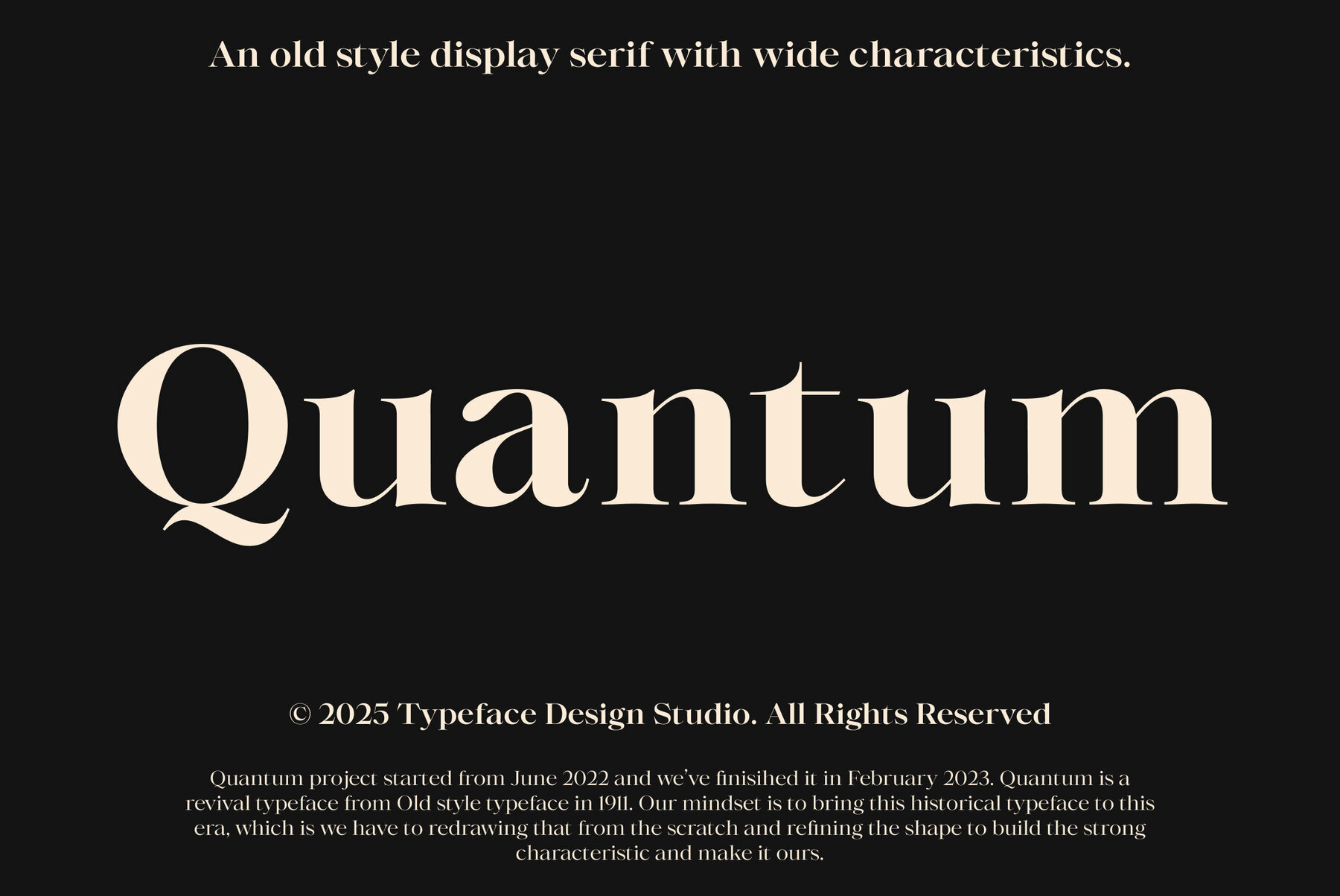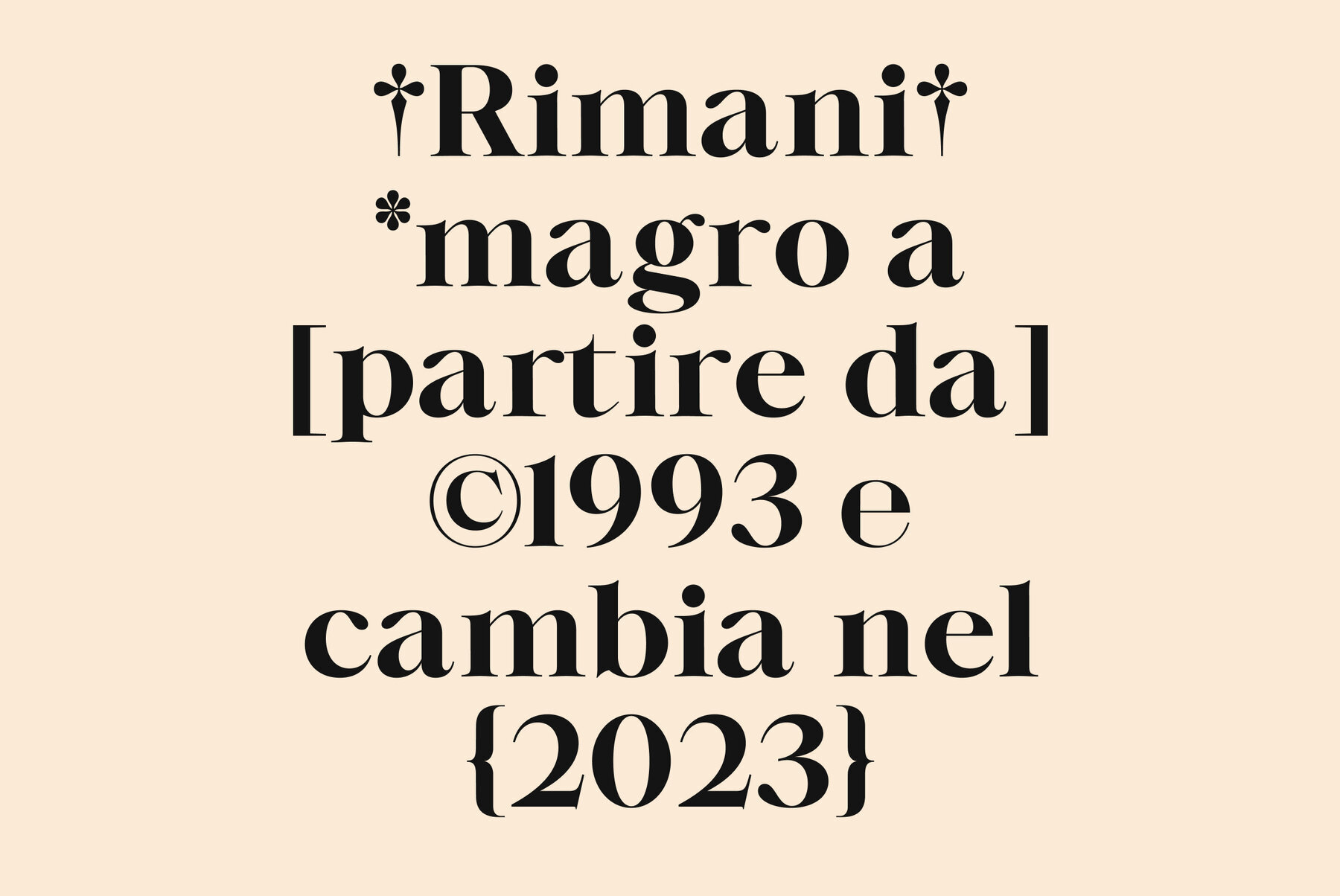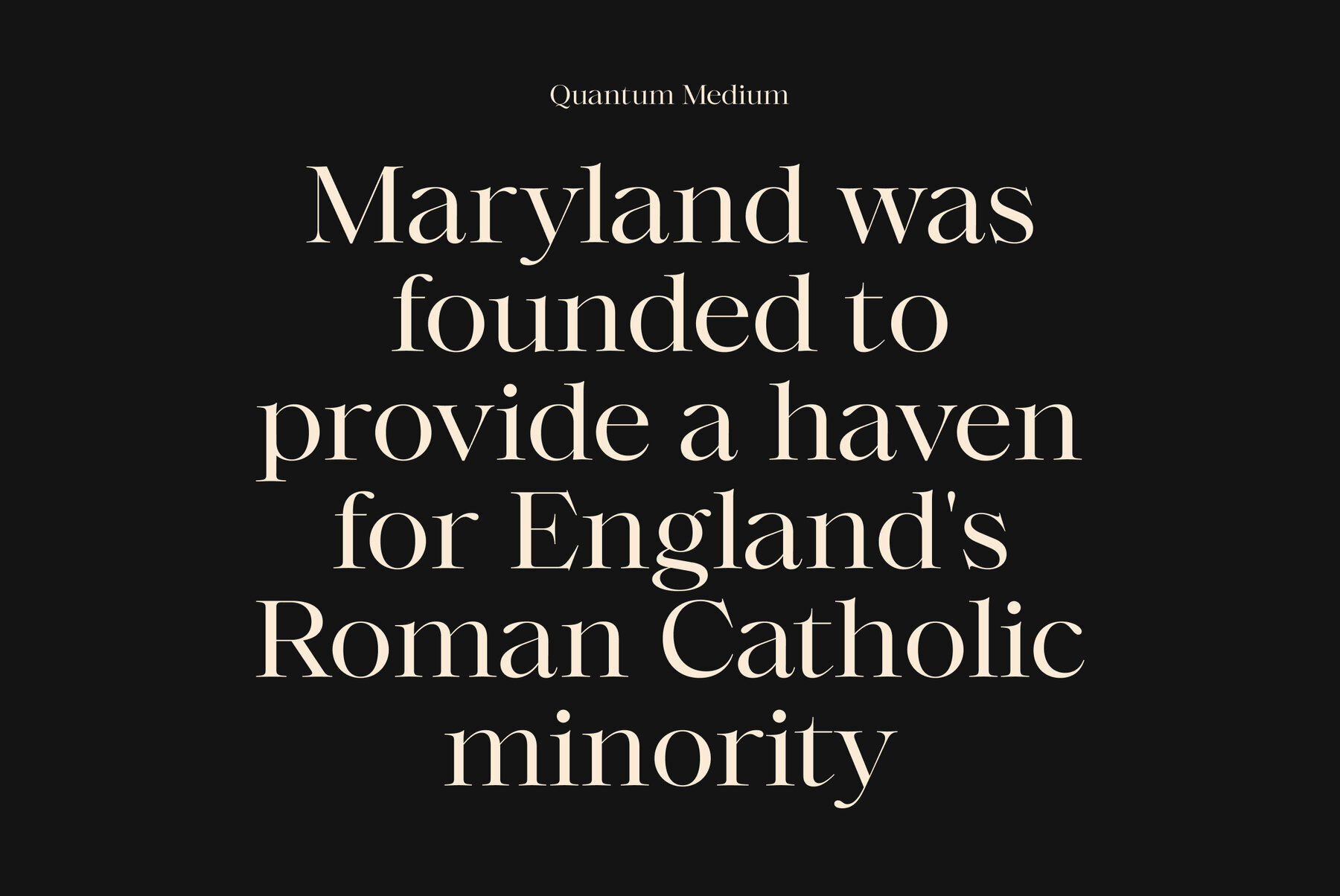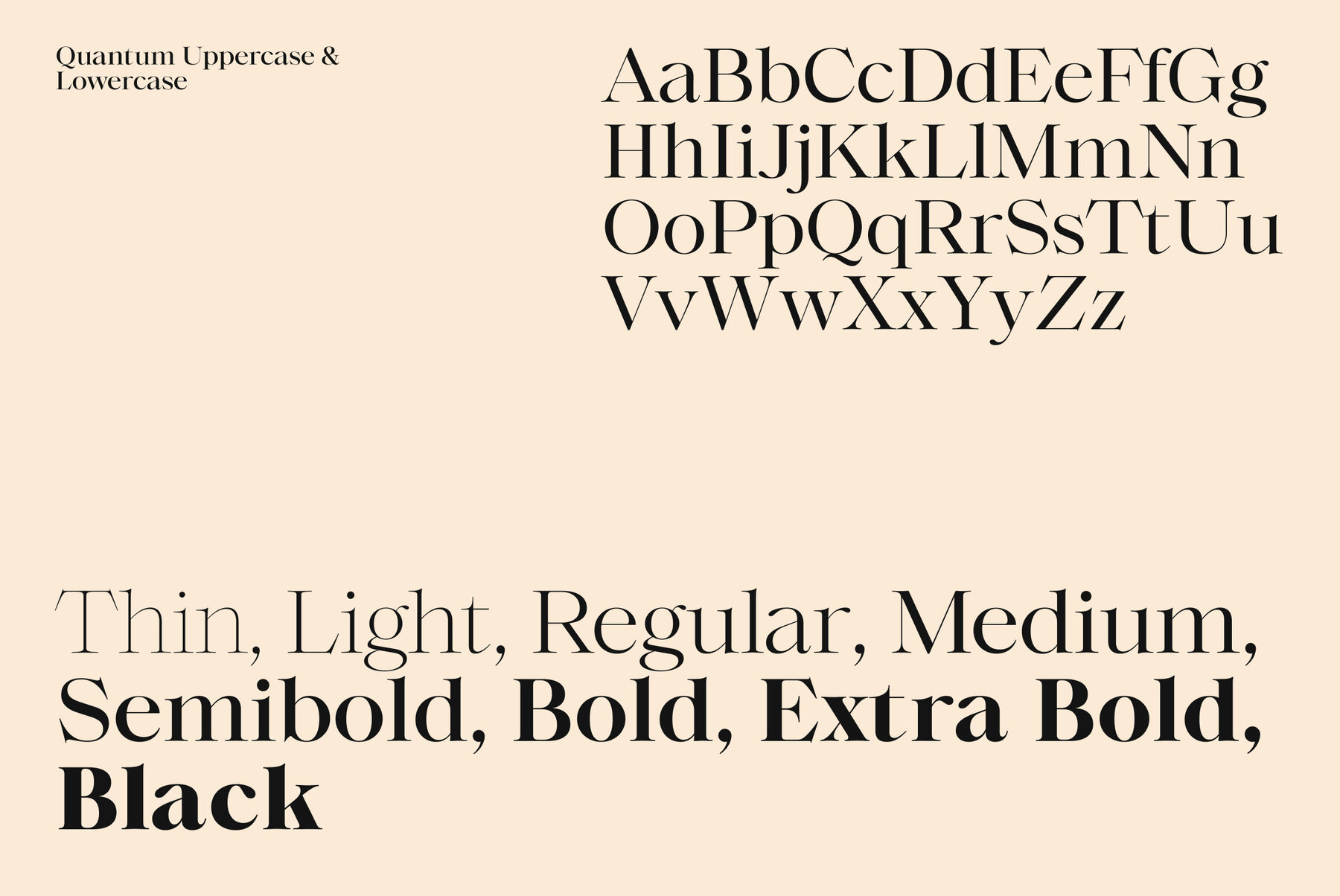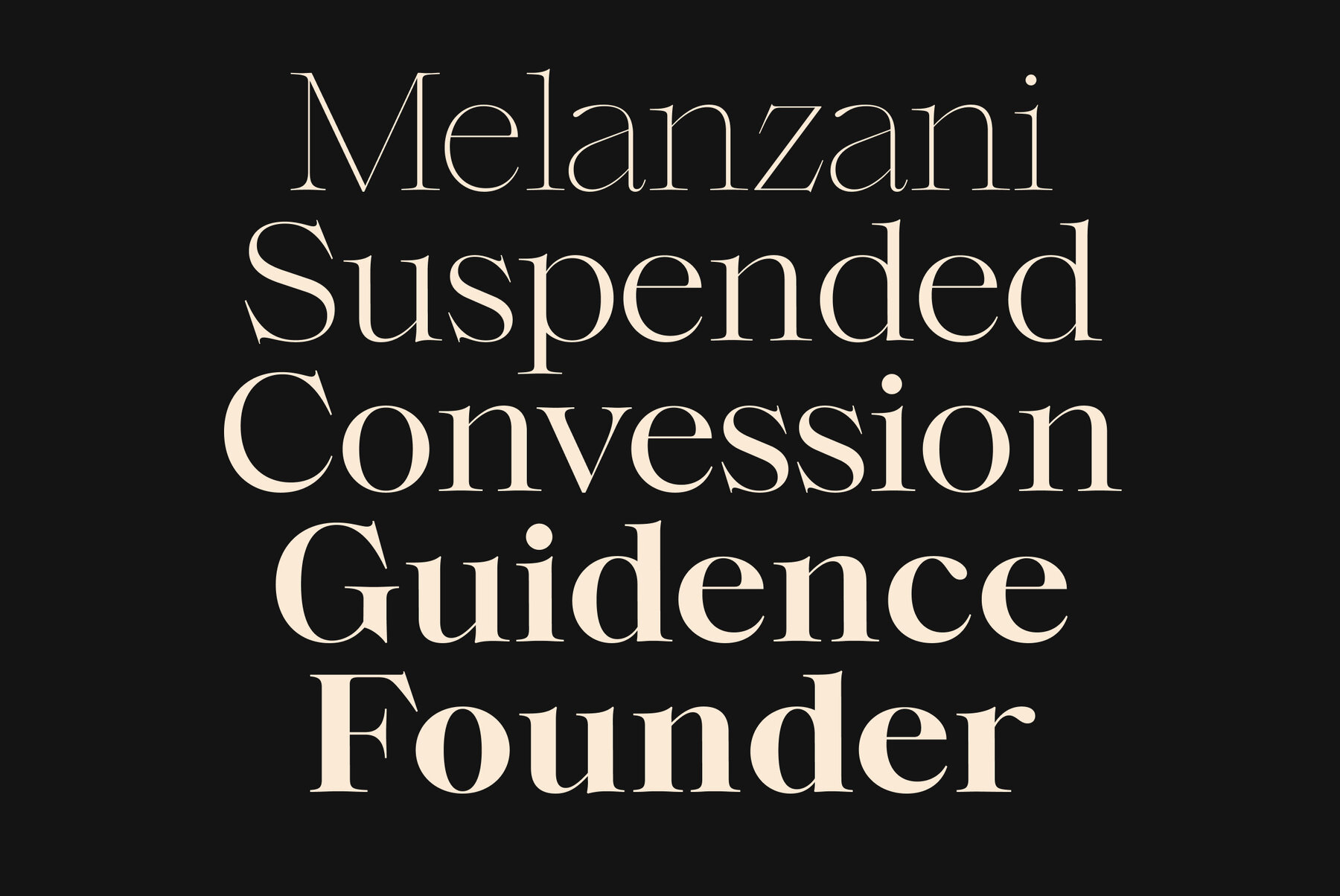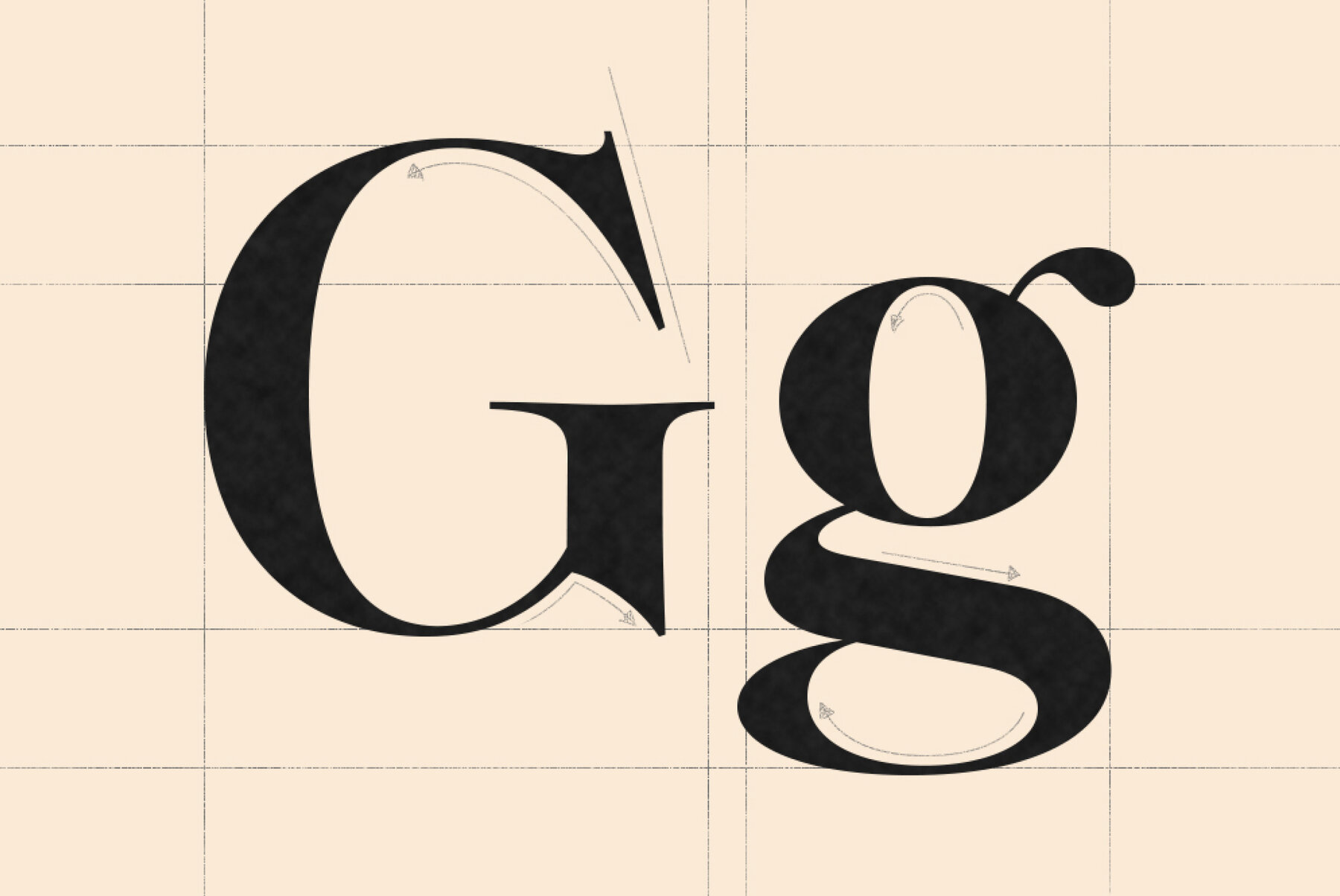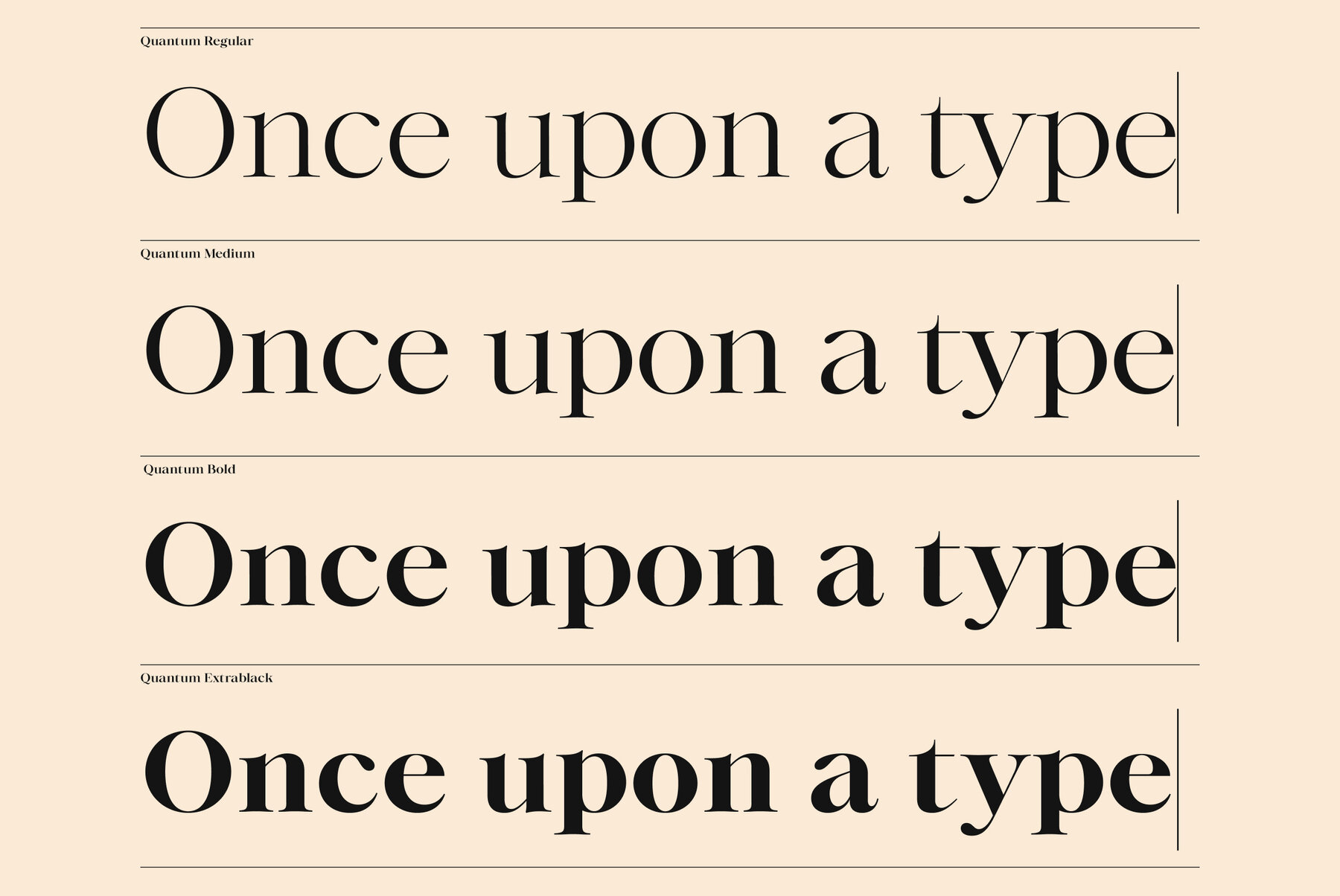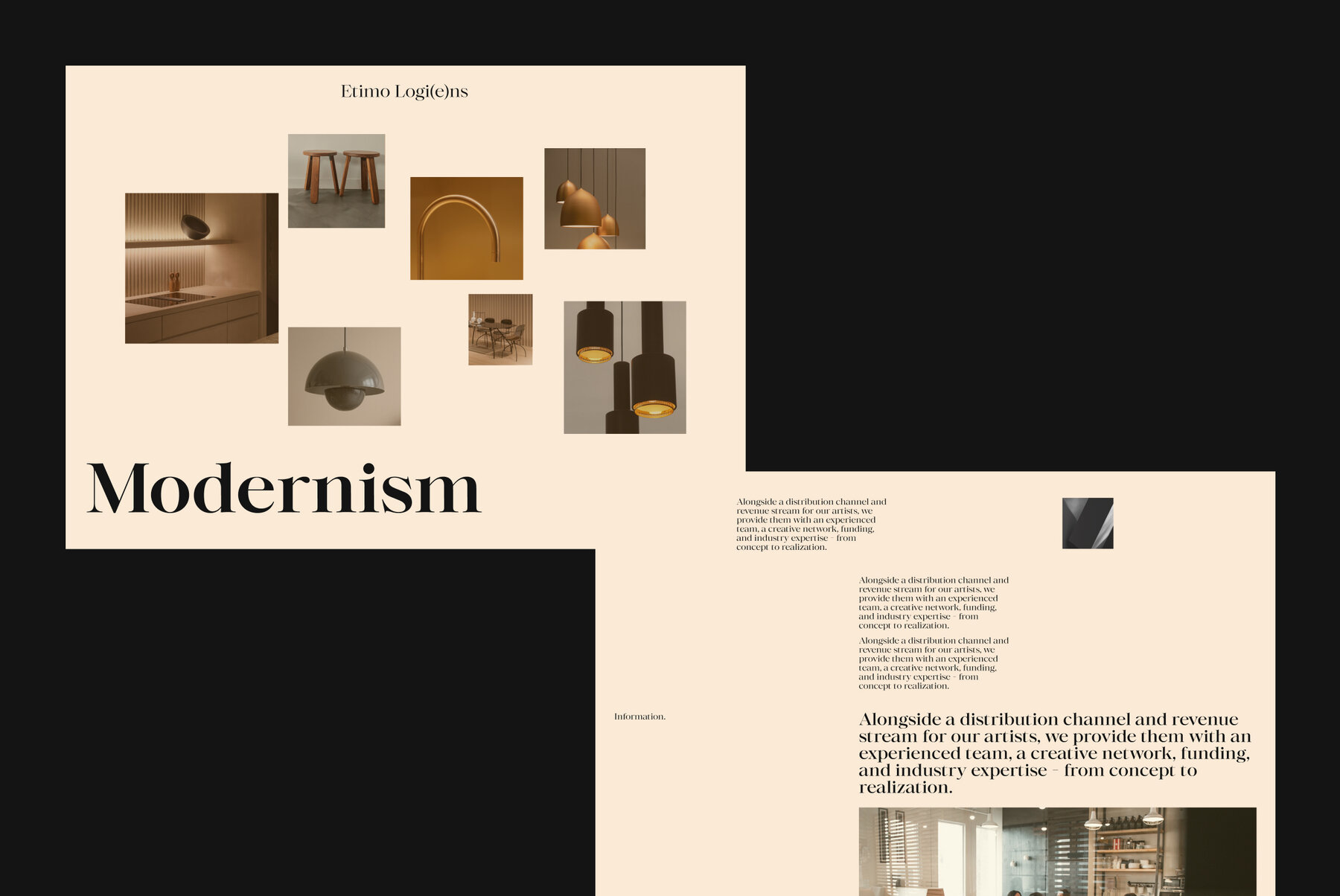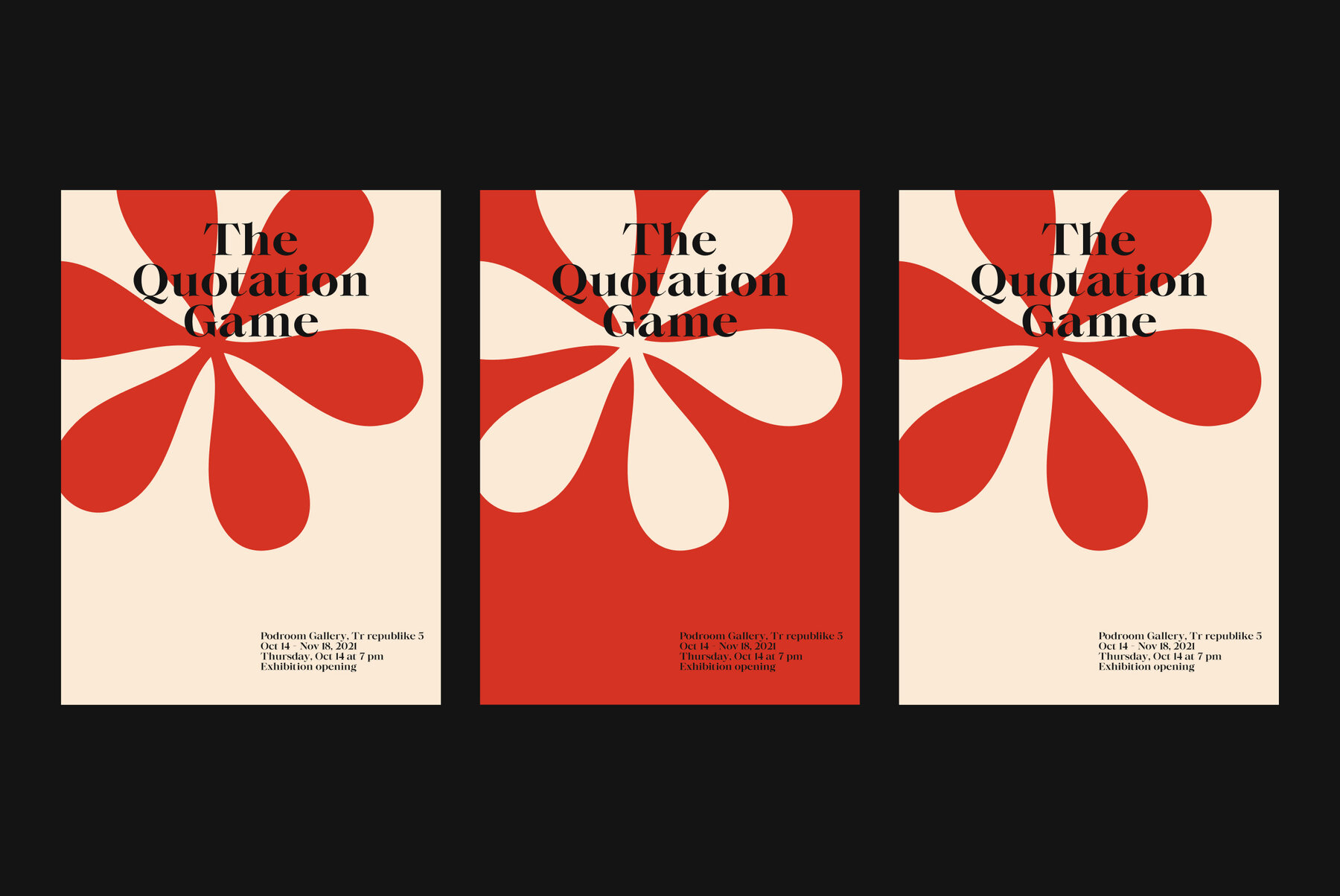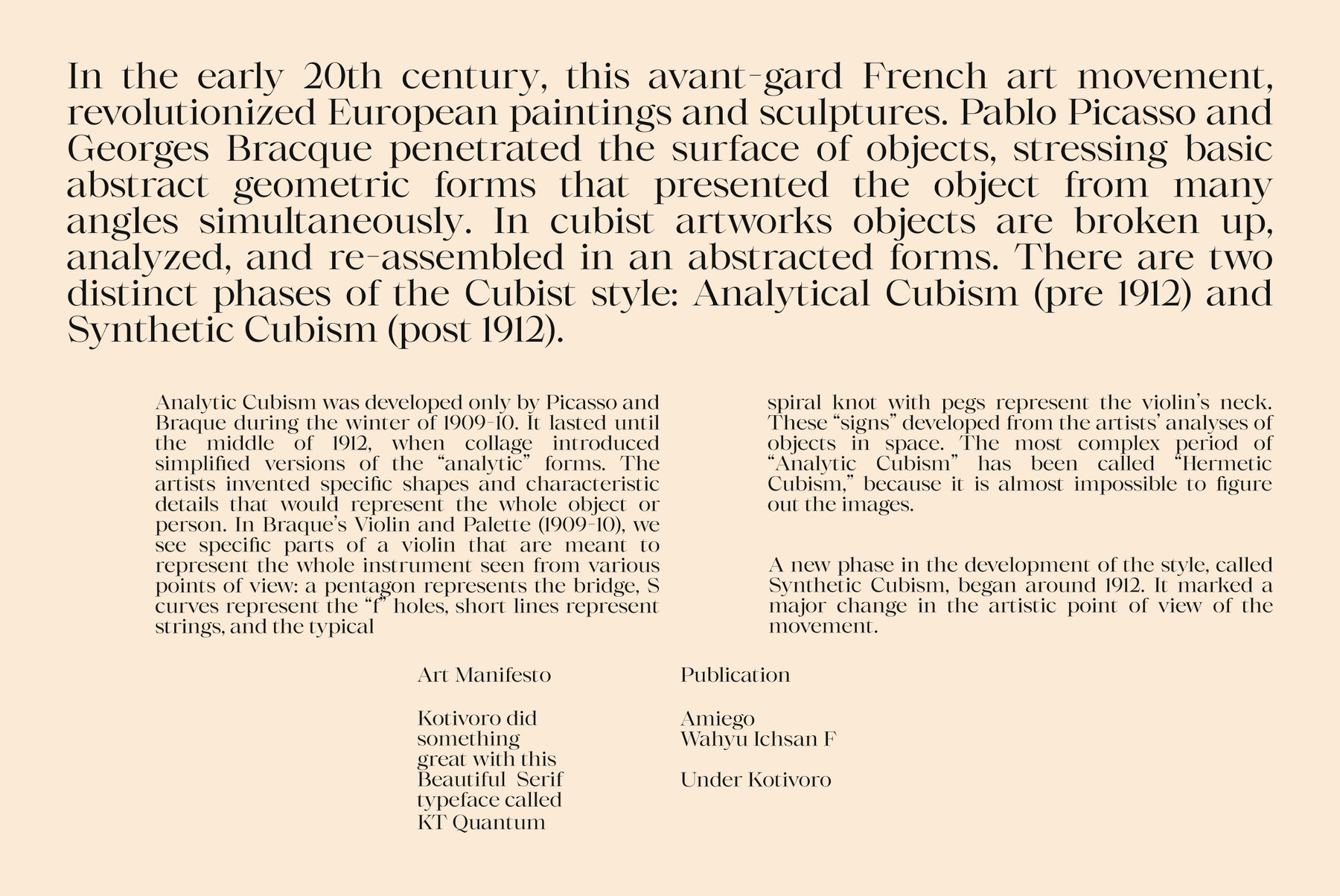
Quantum Font
Reviving the grace of a 1911 Old Style typeface, Quantum merges classic allure with modern functionality. This typeface features 420 meticulously crafted glyphs, supporting a vast array of over 200 languages, perfect for diverse design projects. Its bold, distinctive style offers a balance of strength and elegance, making it an exemplary choice for headlines and sub-headlines. The pronounced contrast of Quantum adds significant visual interest, though it is best suited for larger text due to potential legibility issues in smaller sizes.Quantum: A Revival of Historical Elegance